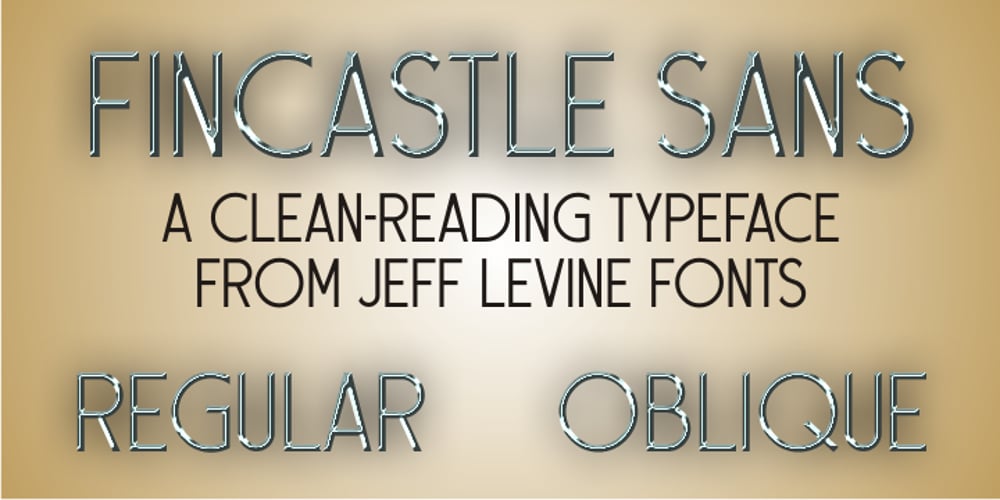
Fincastle Sans JNL
Fincastle Sans JNL font
Fincastle Sans JNL Font Family was designed by Jeff Levine and published by Jeff Levine. Fincastle Sans JNL contains 2 styles and family package options. Fincastle Sans JNL is an all-caps titling font in both regular and oblique versions. It’s clean, legible monoline design complements any layout from ad copy to personal stationery.